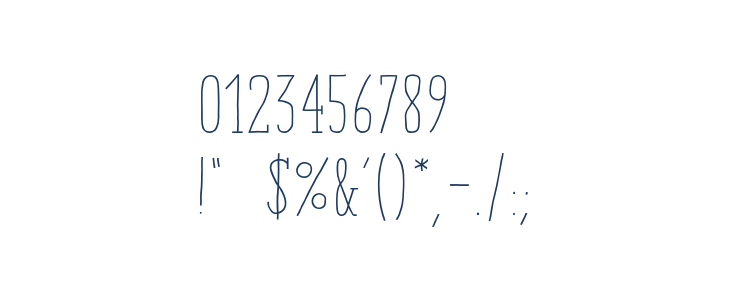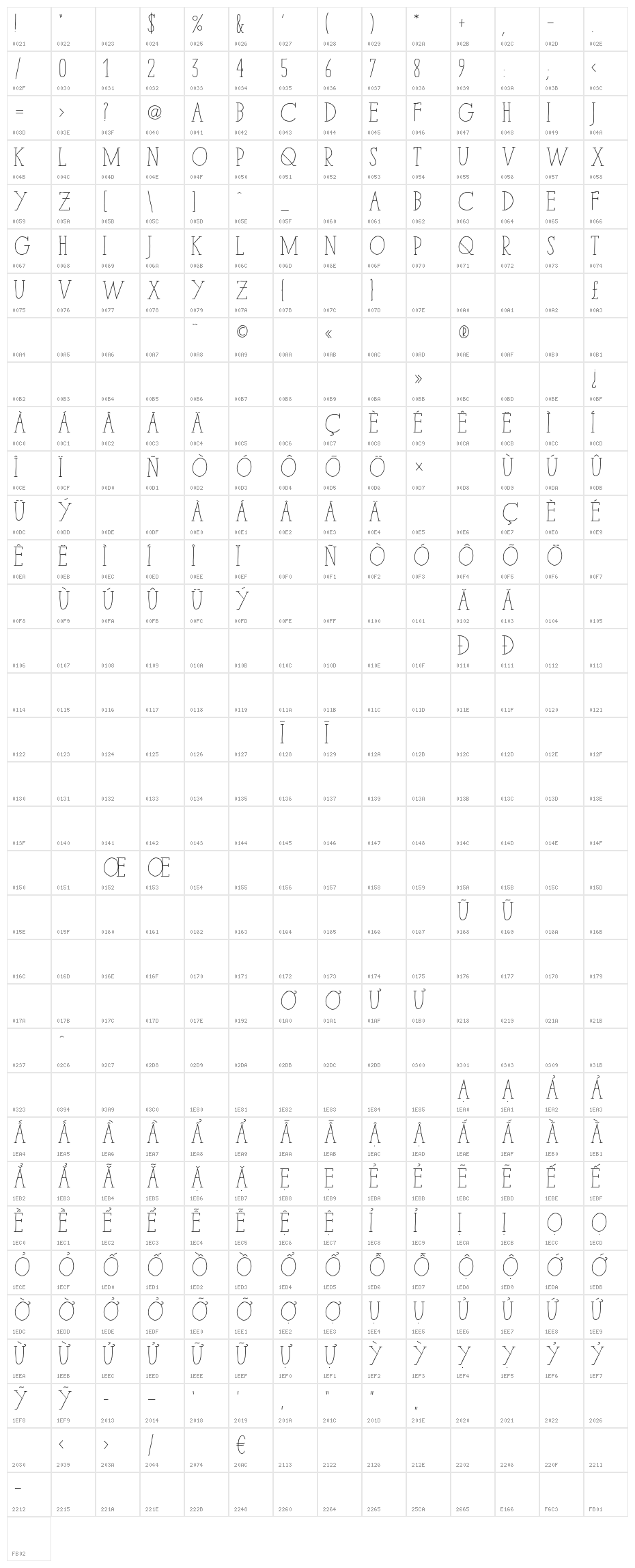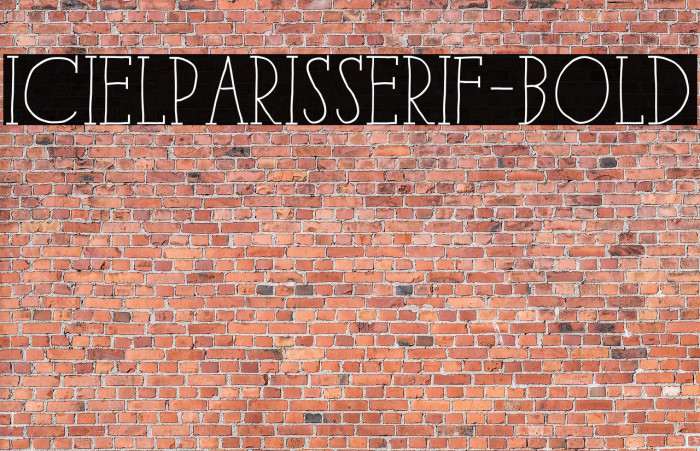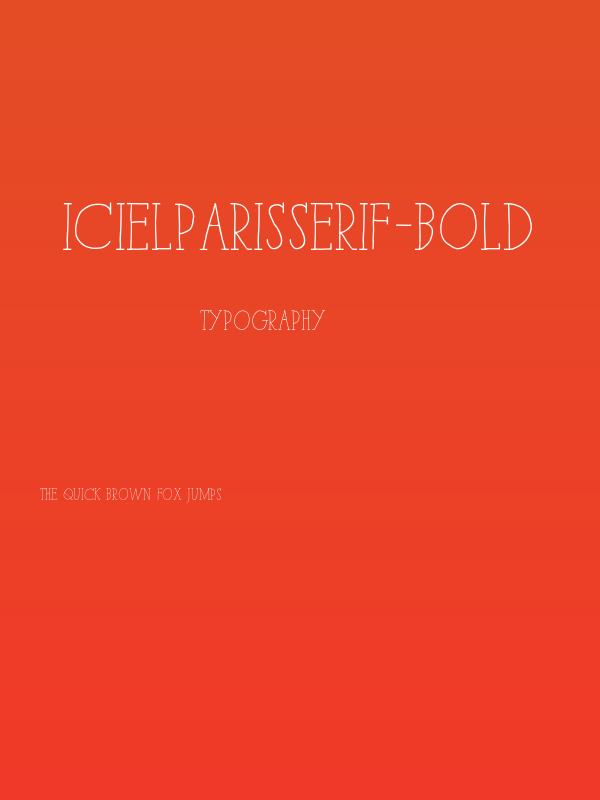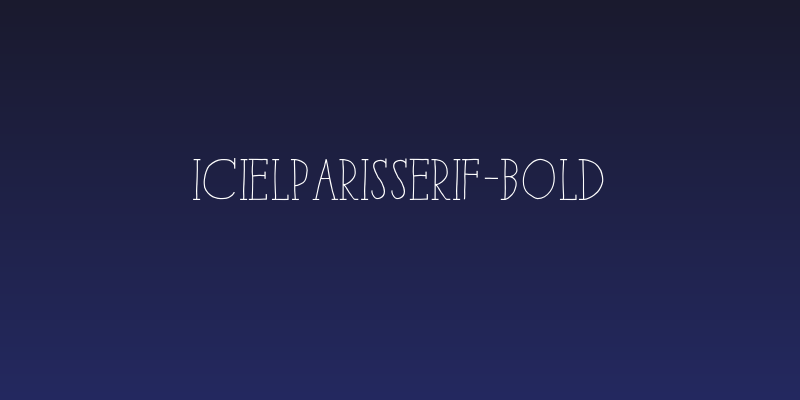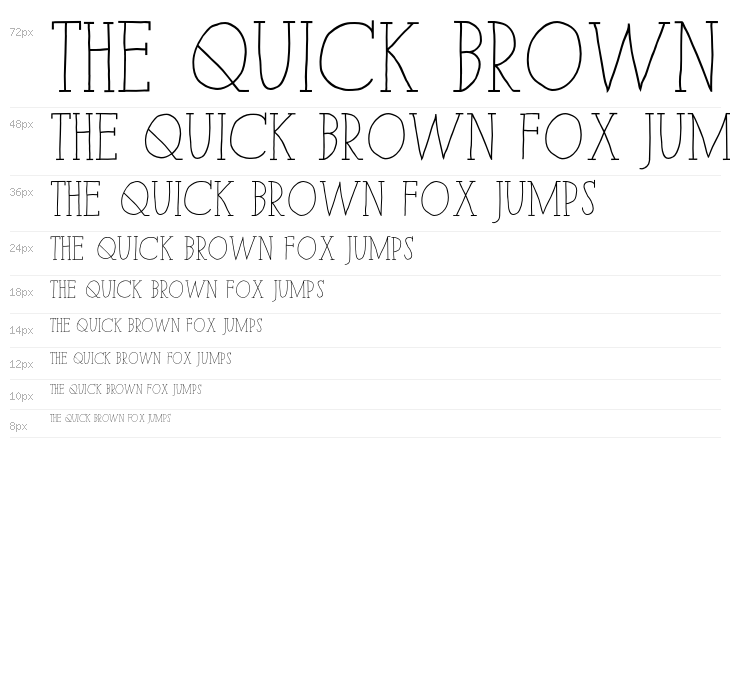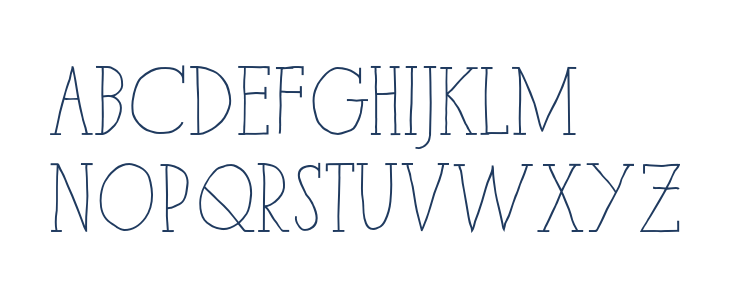
iCielParisSerif-Bold Font
iCielParisSerif-Bold Description
This font features a classic serif style with a modern twist, characterized by its tall, narrow letterforms and thin, elegant strokes. The serifs are subtle yet distinct, adding a touch of sophistication and readability. The uppercase letters are particularly elongated, giving a sense of grandeur and formality. The lowercase letters maintain a consistent style, with a slight contrast in stroke thickness that enhances legibility. The numerals are clean and straightforward, matching the overall aesthetic of the font. Special characters are well-integrated, maintaining the font's cohesive look. This font's refined elegance makes it suitable for a variety of design applications.